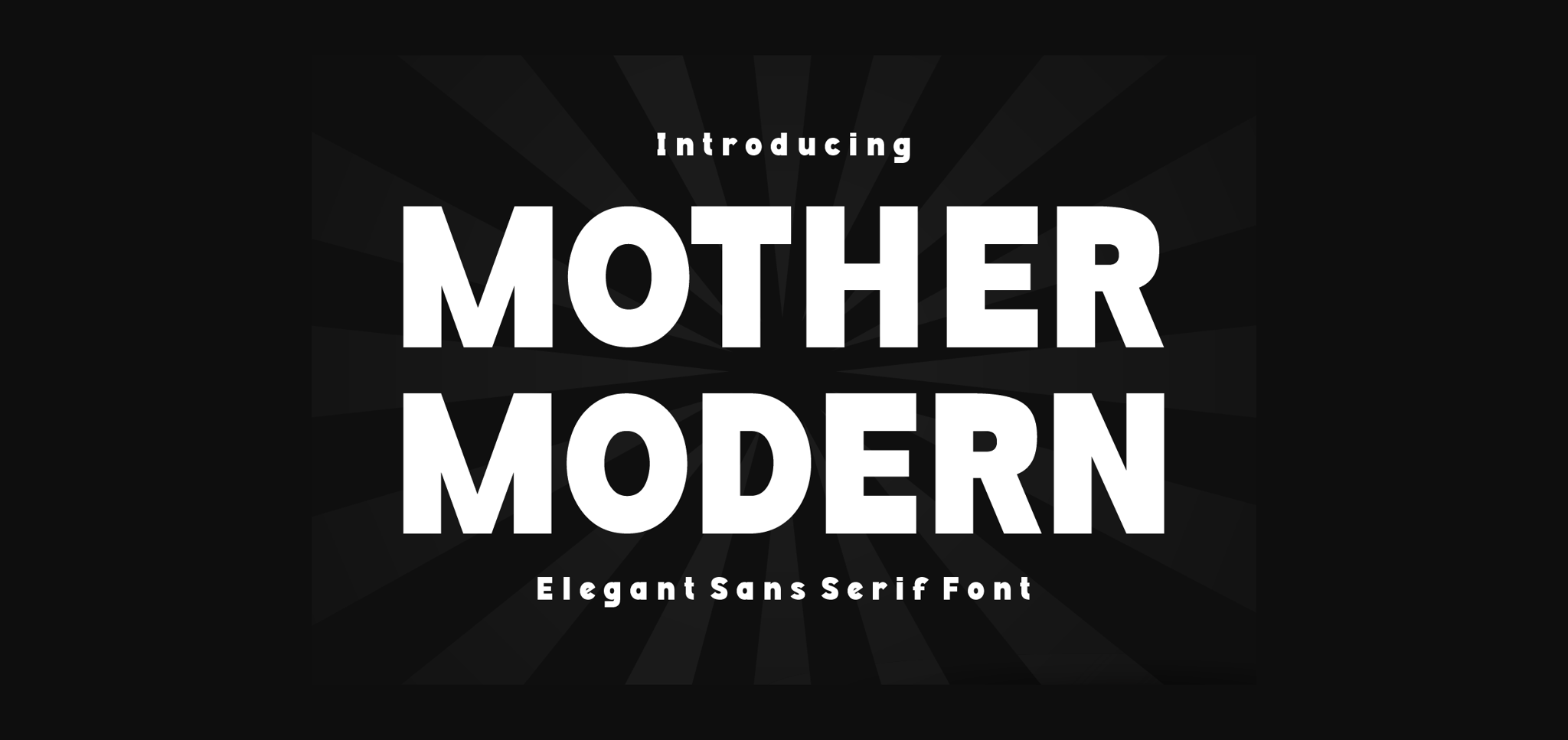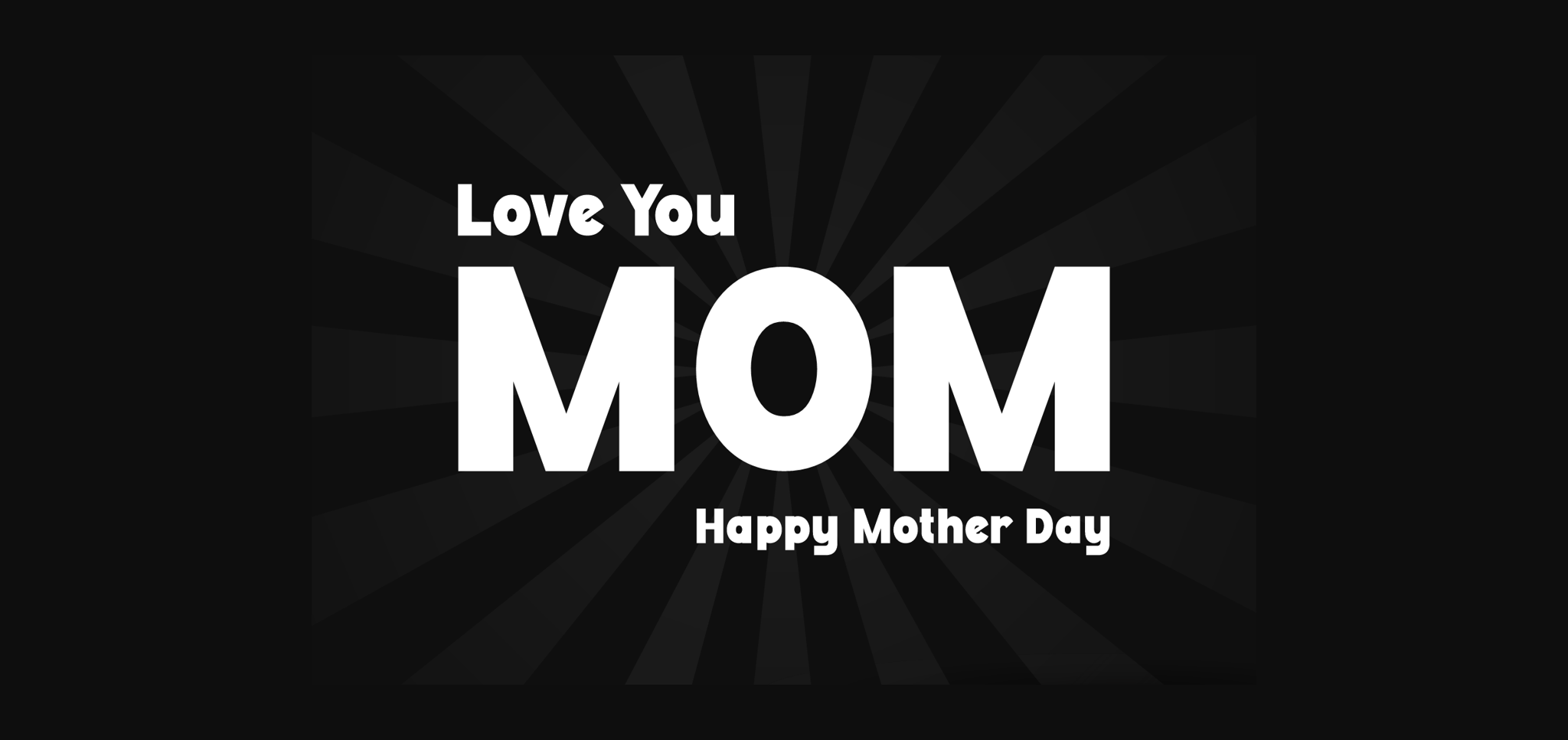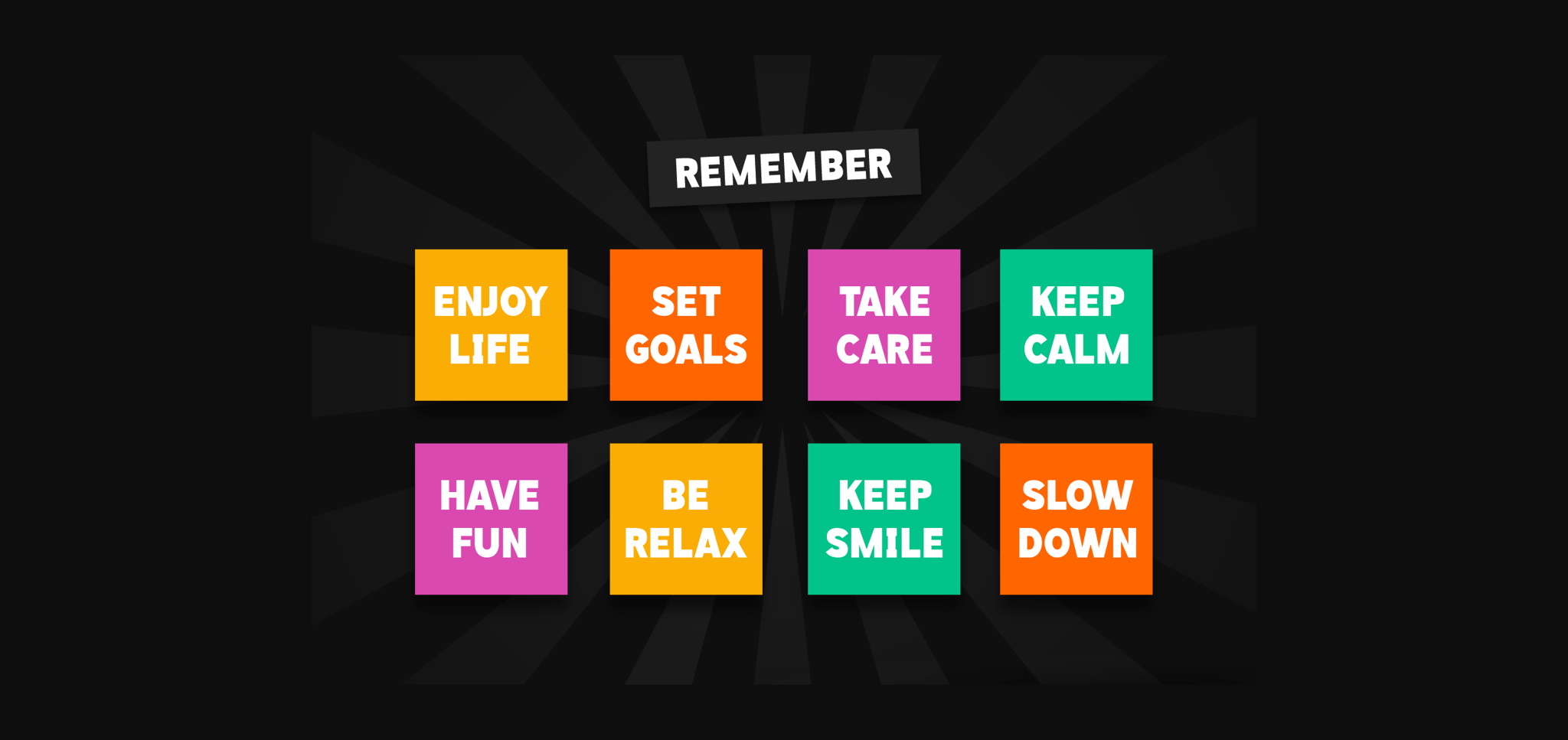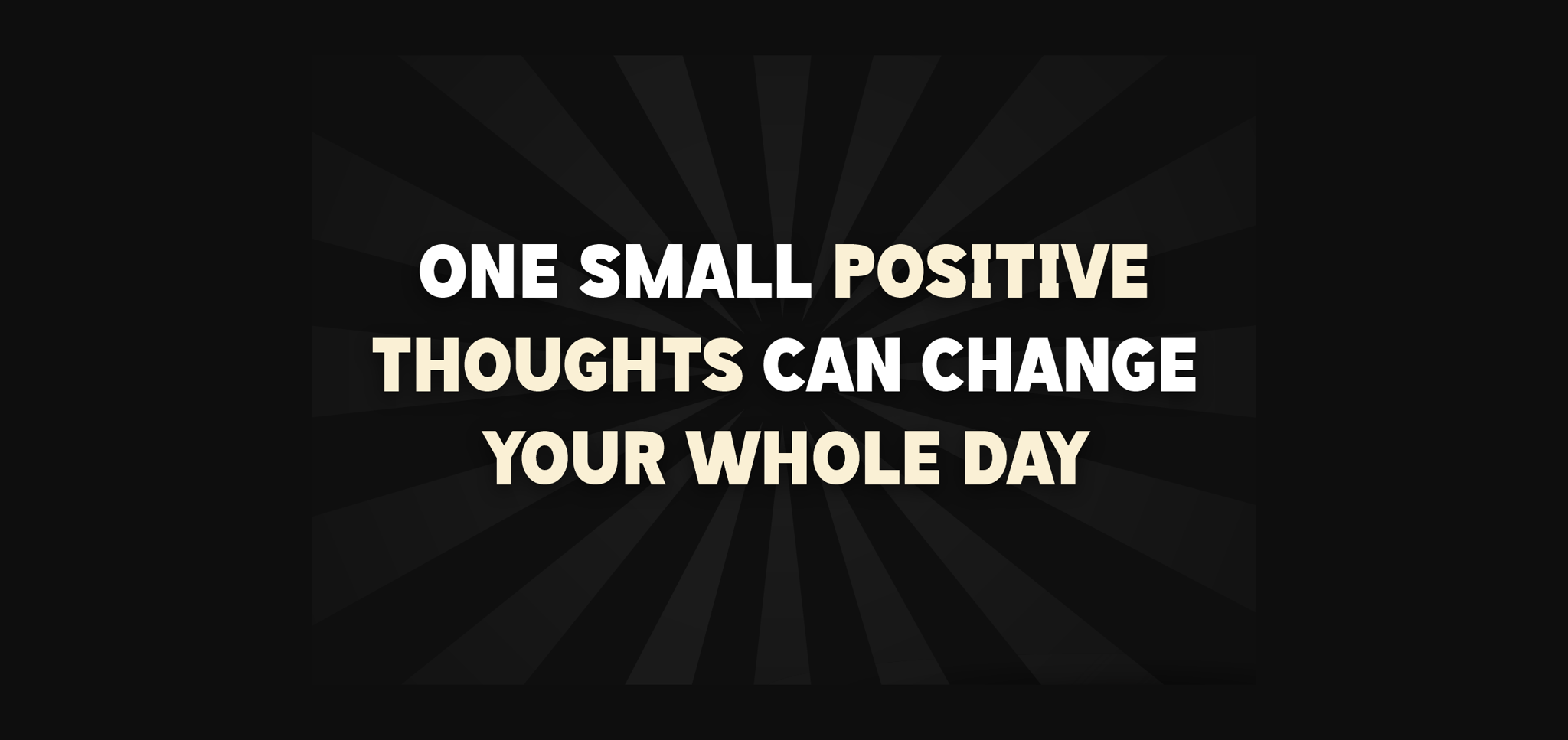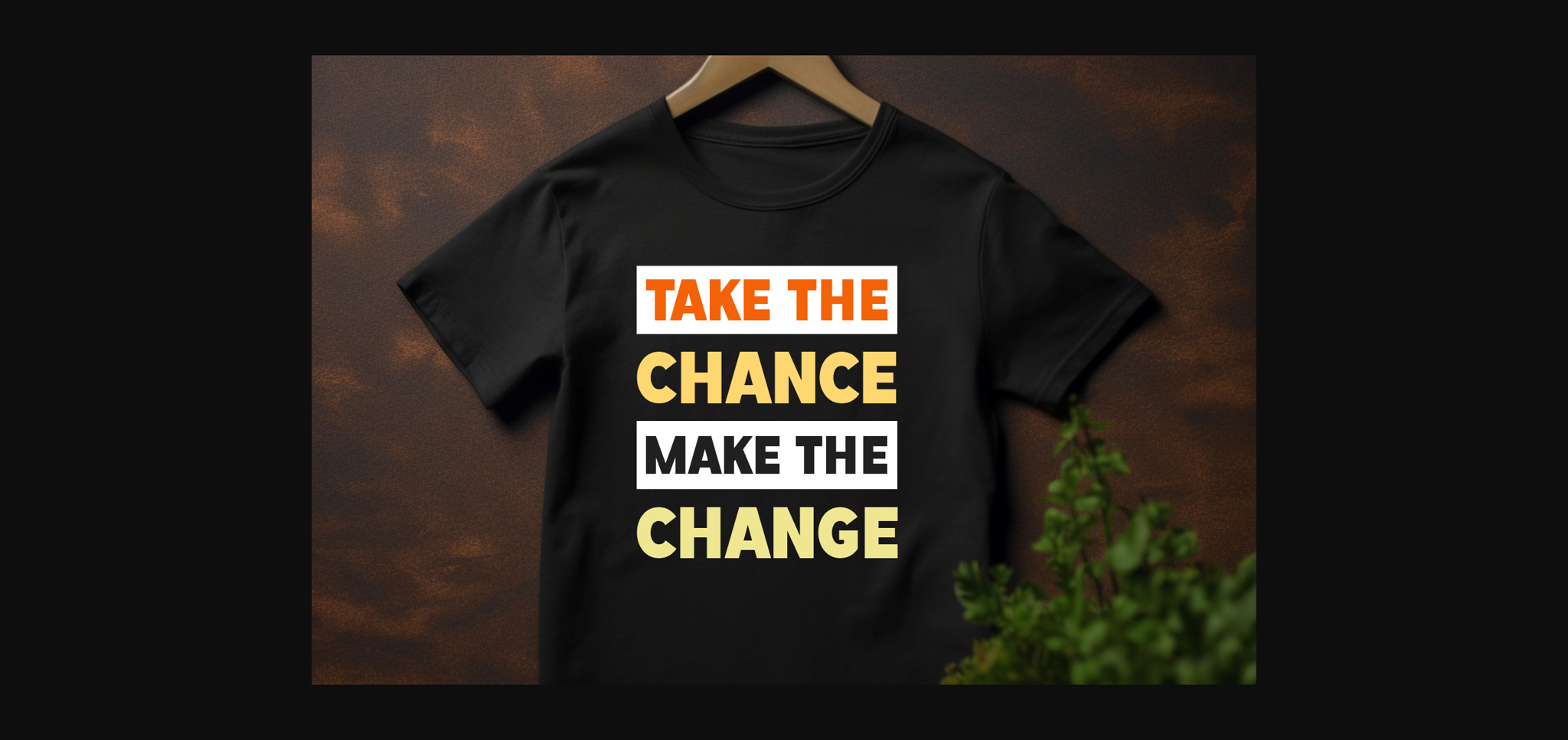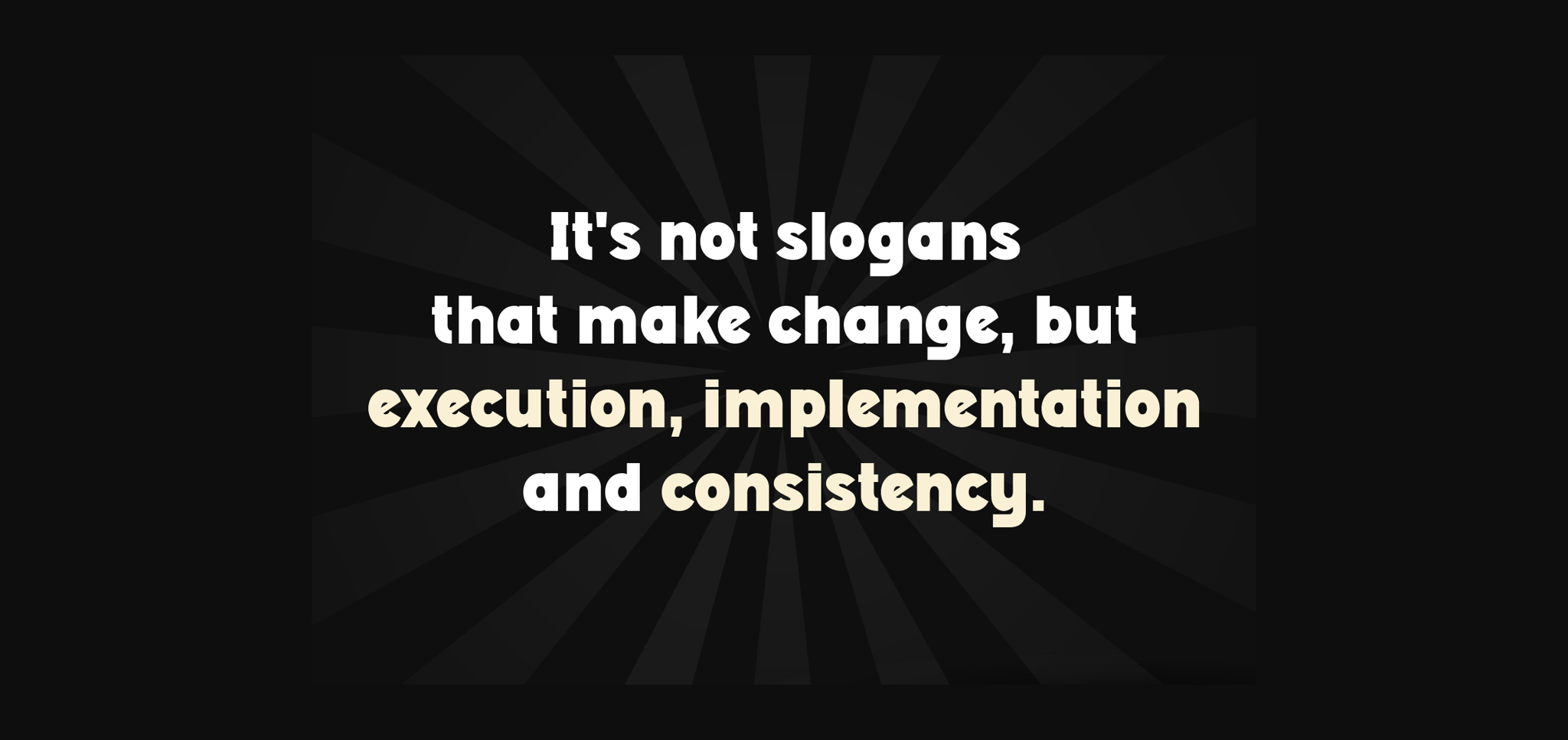
About Mother Modern Font
Mother Modern is a sleek and contemporary sans serif font. It’s clean, easy to read, and perfect for all kinds of projects. Whether you’re designing posters, websites, or anything else, Mother Modern adds a touch of sophistication to your text. With its simple yet stylish appearance, it’s sure to make your words stand out beautifully.